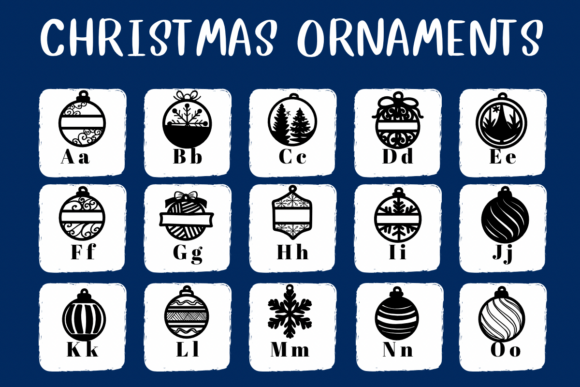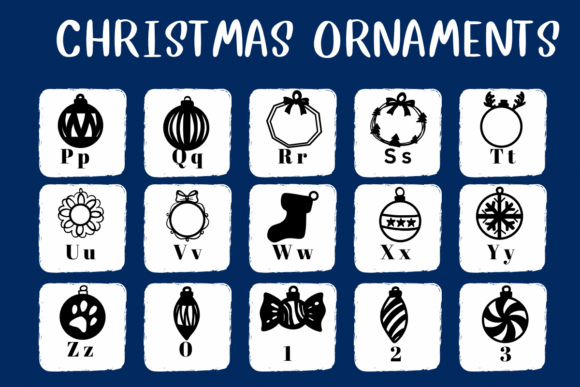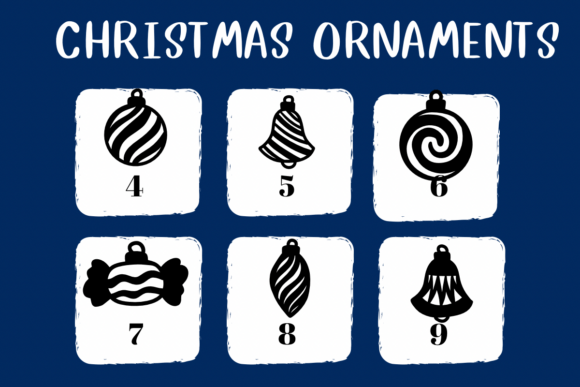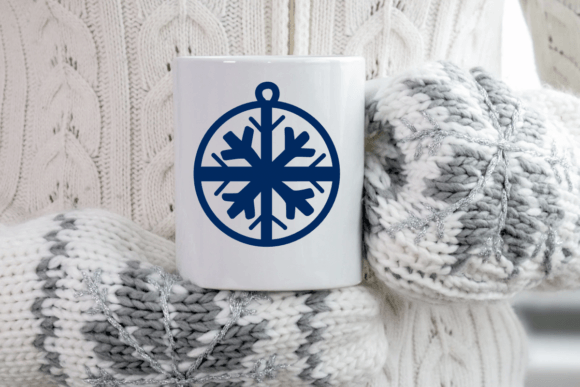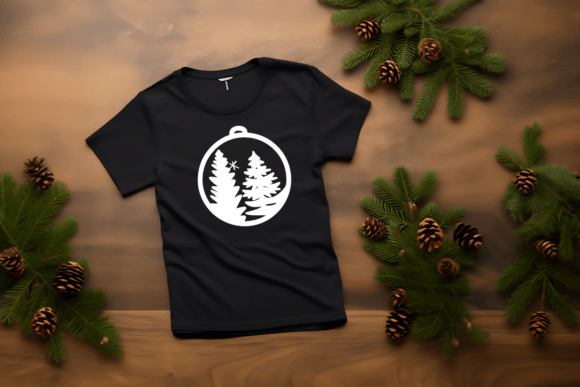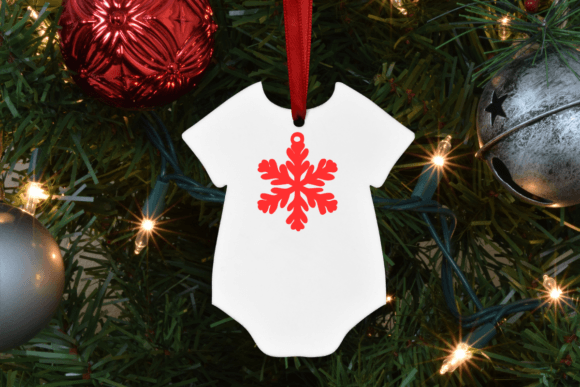
Deck the Halls with Joy: Introducing the Christmas Ornaments Font
As the holiday season approaches, I find myself getting lost in the magic of Christmas. It’s the twinkling lights, the festive music, and the joyful spirit that fills the air. But one of my favorite things about Christmas is the creativity that comes with it – from crafting handmade ornaments to designing festive holiday cards.
That’s where the Christmas Ornaments Font comes in – a delightful font that brings a touch of whimsy to your holiday designs. This font features cute symbols of Christmas ornaments, each one perfectly crafted to add a joyful touch to your projects. From baubles to stars and snowflakes, every letter is a unique ornament design waiting to be used.
For designers, the Christmas Ornaments Font is a valuable asset, offering endless possibilities for creative expression. Whether you’re designing holiday cards, decorations, or crafts, this font is sure to bring a smile to your face and a touch of festive cheer to your work.
Key Features of Christmas Ornaments Font
- Font Style: A festive and playful font featuring ornaments, suitable for holiday-themed designs.
- Size: 1000 glyphs, providing a wide range of characters, including ornaments, letters, and symbols.
- Unique Characteristics: Each ornament is intricately designed, with delicate details and textures, adding a touch of whimsy to designs.
Designer Review: Christmas Ornaments Font
Overall, I think the Christmas Ornaments Font is a lovely, festive addition to any holiday design project. ✨ The font’s unique, hand-crafted feel really captures the spirit of Christmas and adds a personal touch to any design. The ornaments themselves are beautifully detailed and add a nice level of visual interest to the font.
Here are some specific things that work well:
- The font’s versatility – it can be used for a wide range of holiday designs, from cards and invitations to packaging and advertising.
- The ornaments are highly customizable, making it easy to swap out different shapes and colors to match your design’s aesthetic.
- The font is well-suited for use with bold, eye-catching graphics and patterns, making it a great choice for designs that need to stand out.
- The font may not be the best choice for designs that require a lot of text – the ornaments can be distracting and make it difficult to read.
- The font’s unique feel may not be to every designer’s taste – some may find it too busy or overwhelming.
Overall, I think the Christmas Ornaments Font is a fun and festive addition to any holiday design project. While it may not be the best choice for every design, it’s definitely worth considering for projects that need a little extra holiday cheer.
Use the Christmas Ornaments Font to add a festive touch to your holiday designs.
Some common use cases include:
Gift tags and gift wrap labels
Invitations and party decorations
Social media graphics and holiday cards
Custom holiday graphics and digital art